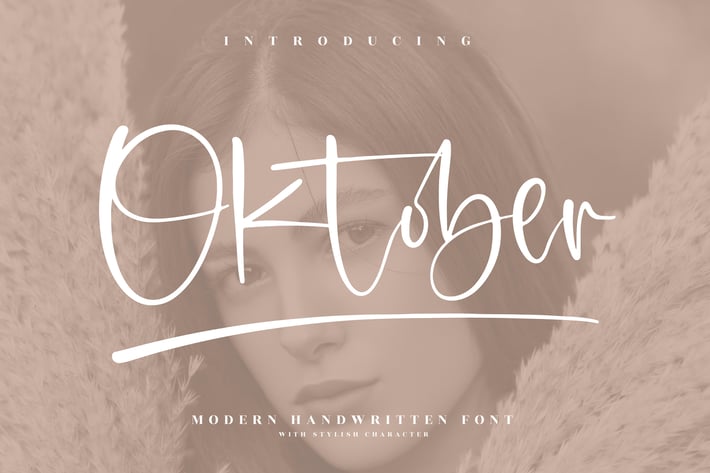
Oktober Modern Handwritten Font
Oktober is a modern handwritten font that blends casual charm with stylish elegance. With its smooth curves and contemporary flow, Oktober is designed to bring warmth and personality into every project. This font is versatile, making it suitable for both personal and professional design needs.
+ Modern handwritten style
+ Uppercase, lowercase, numbers & punctuation
+ Alternates & ligatures
+ Multilingual support
Make your designs effortlessly stylish with Oktober — a modern handwritten font that captures elegance and personality in every curve.
+ Modern handwritten style
+ Uppercase, lowercase, numbers & punctuation
+ Alternates & ligatures
+ Multilingual support
Make your designs effortlessly stylish with Oktober — a modern handwritten font that captures elegance and personality in every curve.